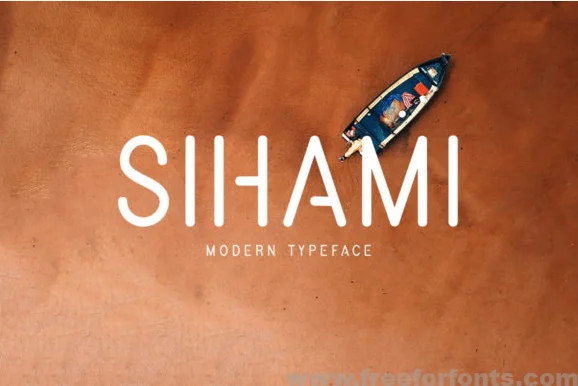
Sihami Font
Sihami Font is perfect for elegant branding, luxury fashion magazines, sophisticated beauty products, refined wedding invitations, upscale restaurant menus, premium jewelry catalogs, high-end spa materials, cultured art galleries, exclusive boutique signage, graceful editorial design, prestigious corporate identities, and sophisticated lifestyle publications.
What makes Sihami Font exciting is its graceful sophistication that captures the essence of refined femininity through delicately crafted letterforms that exude elegance and charm. This enchanting typeface embodies timeless beauty and contemporary grace, combining flowing curves with balanced proportions that create an irresistible appeal for luxury and lifestyle brands. The font's gentle character and meticulous attention to detail convey quality and exclusivity while maintaining the warmth and approachability that resonates with discerning audiences. Its refined aesthetic makes it perfect for brands that want to communicate elegance, sophistication, and authentic luxury without appearing ostentatious or cold.
The Sihami Font family includes light, regular, medium, and bold weights, each available with corresponding italic styles. The comprehensive family features elegant alternates, graceful ligatures, and sophisticated swashes that enhance the font's refined character and provide designers with extensive luxury typography possibilities.
Whether you're creating prestigious brand identities, designing luxury marketing materials, or developing sophisticated editorial content, Sihami Font Free Download provides the graceful elegance your refined projects demand. This premium typeface excels in applications where sophistication and emotional connection are crucial for brand positioning and audience engagement in luxury markets. The font's elegant qualities work beautifully across digital platforms and premium print applications, making it an essential tool for designers creating memorable experiences for affluent, style-conscious audiences. Luxury brands and sophisticated design agencies choose this font for its ability to communicate refinement while maintaining perfect readability and contemporary relevance. The extensive character set supports multiple languages and includes specialized elegant symbols, expanding its versatility for international luxury applications and multilingual sophisticated communications. Professional designers appreciate its seamless performance across various media while maintaining consistent brand expression and emotional appeal. When you incorporate this exceptional typeface into your luxury communications, you're selecting a typography solution that celebrates refined taste and graceful sophistication, ensuring your brand connects authentically with discerning audiences while maintaining the elegant credibility essential for success in competitive luxury markets and sophisticated industries that cater to consumers seeking authentic beauty, quality, and timeless style in their lifestyle choices.